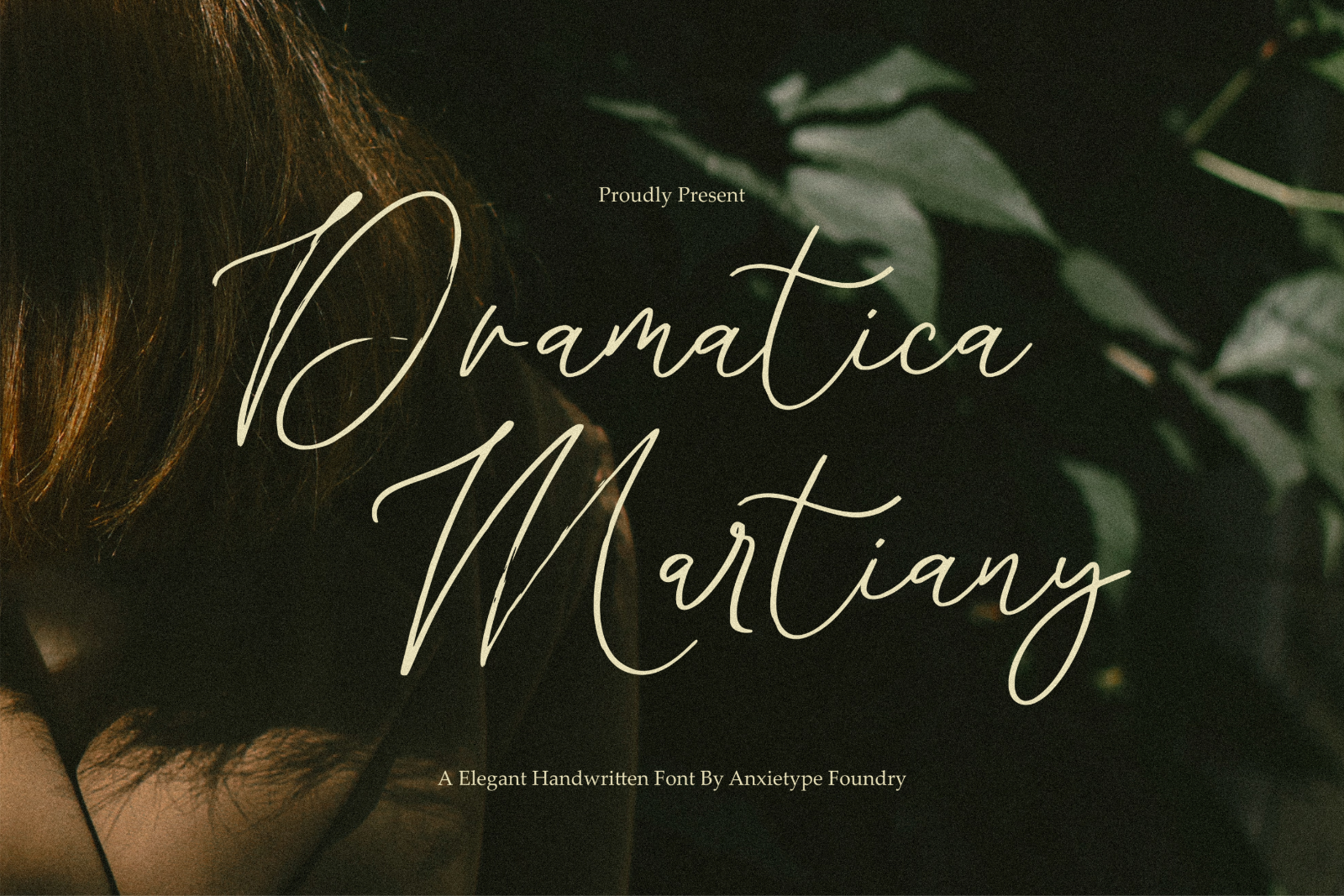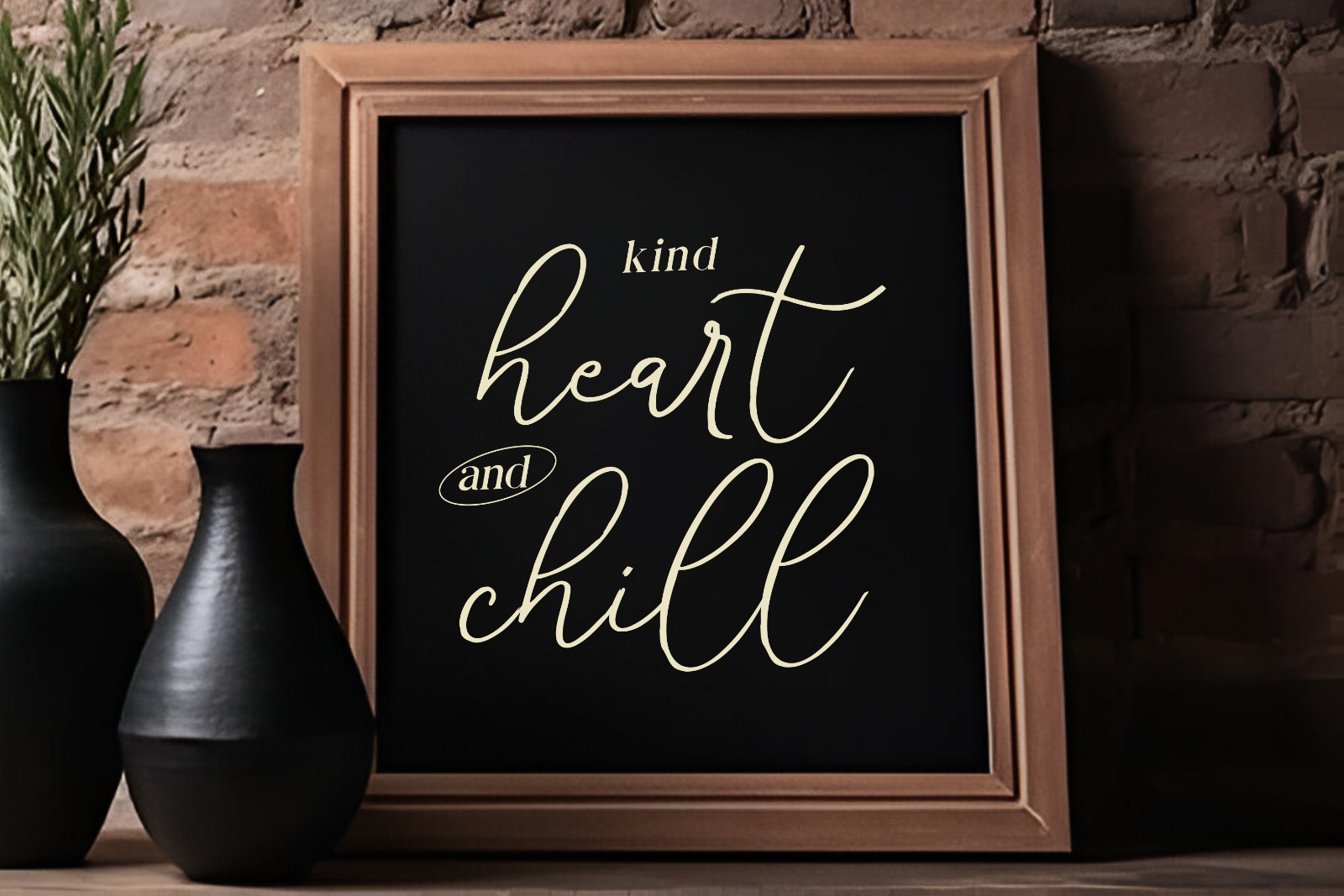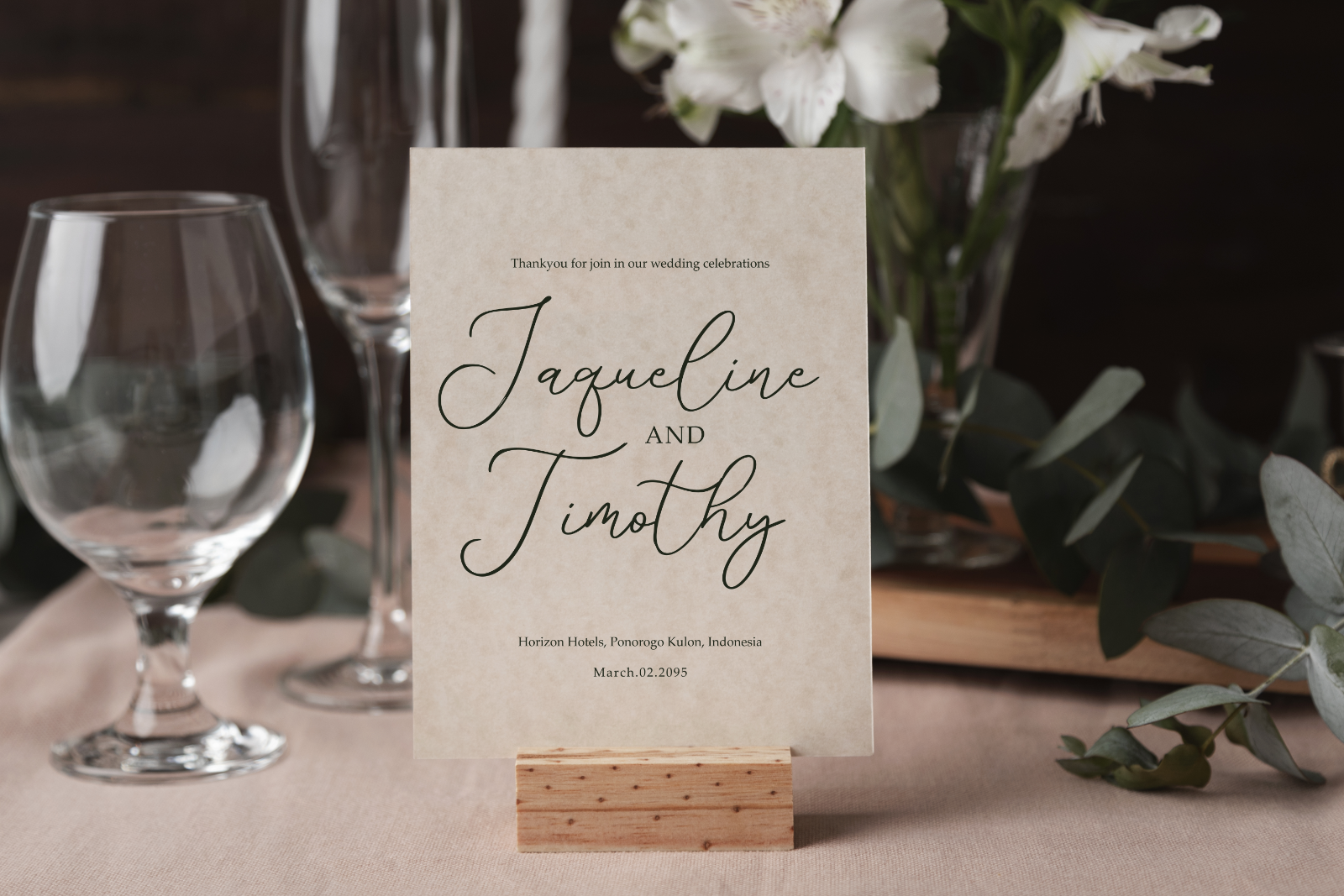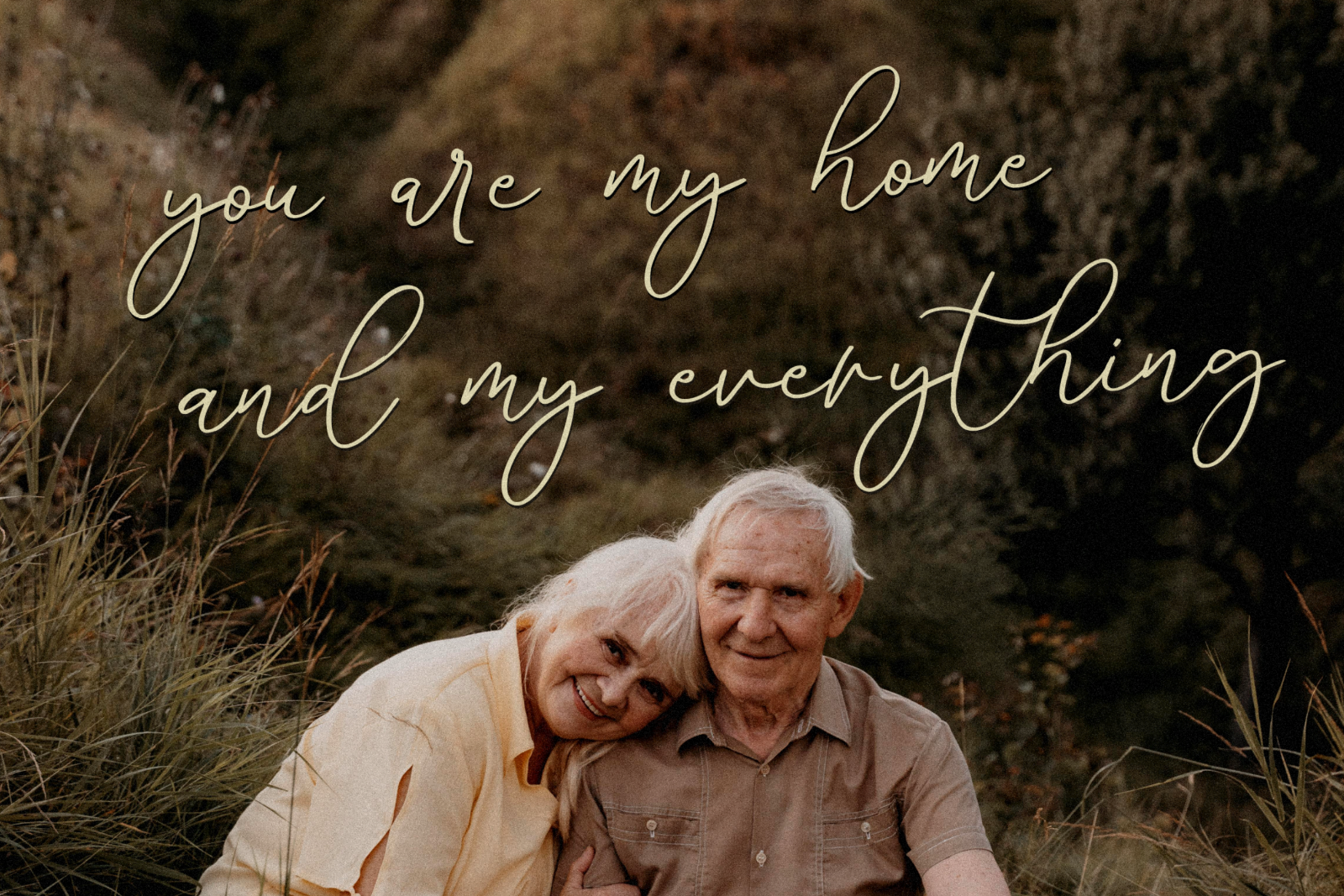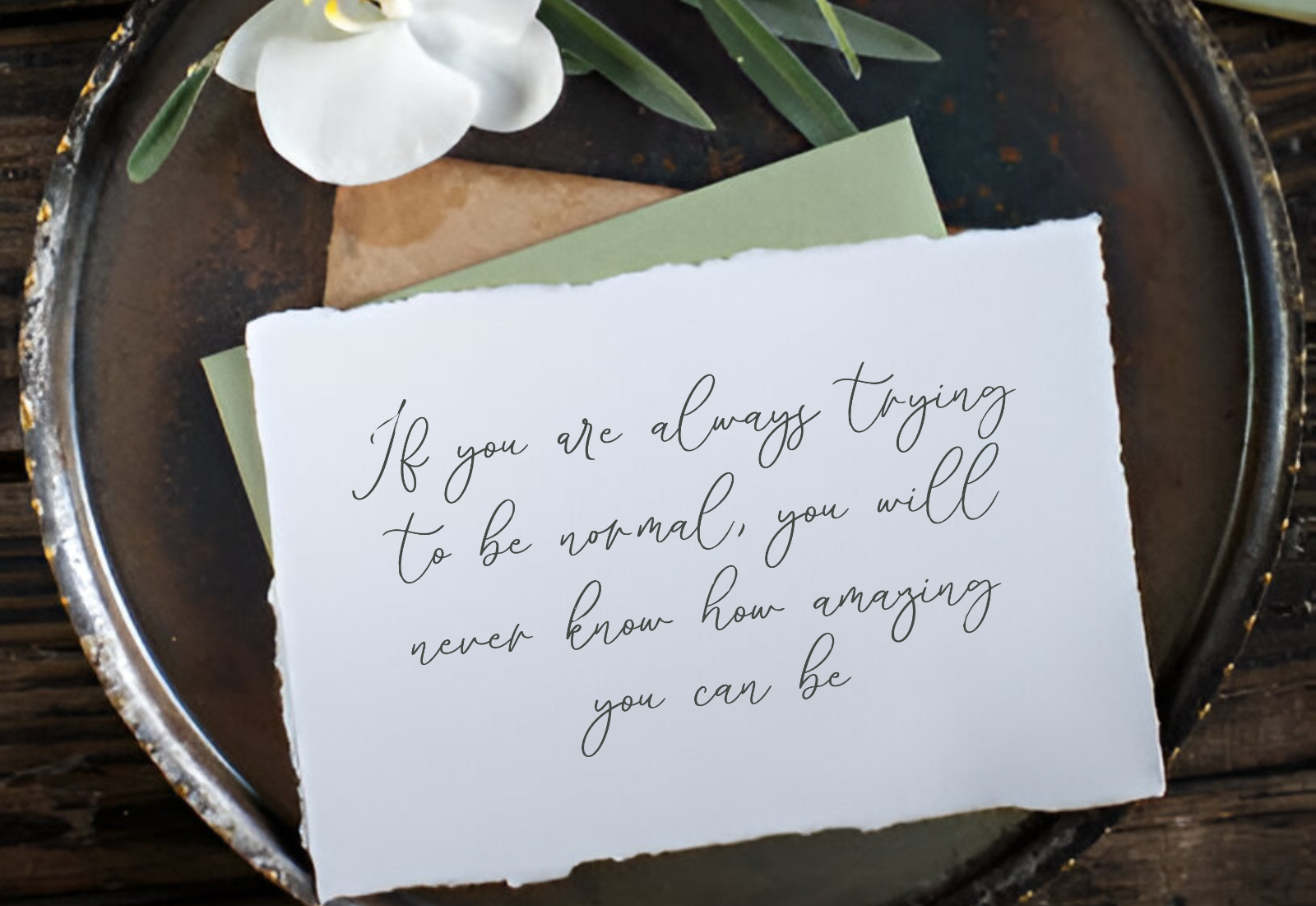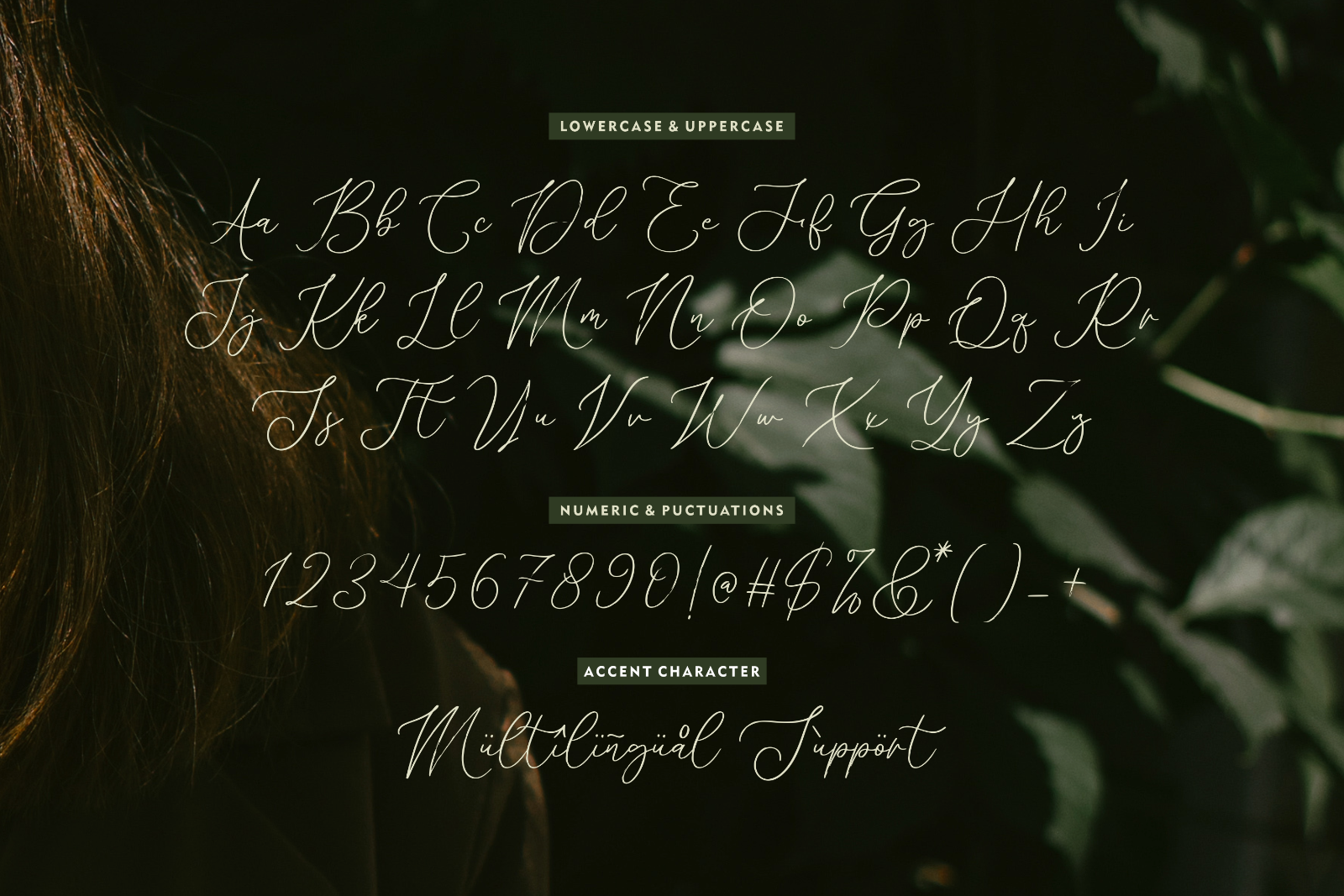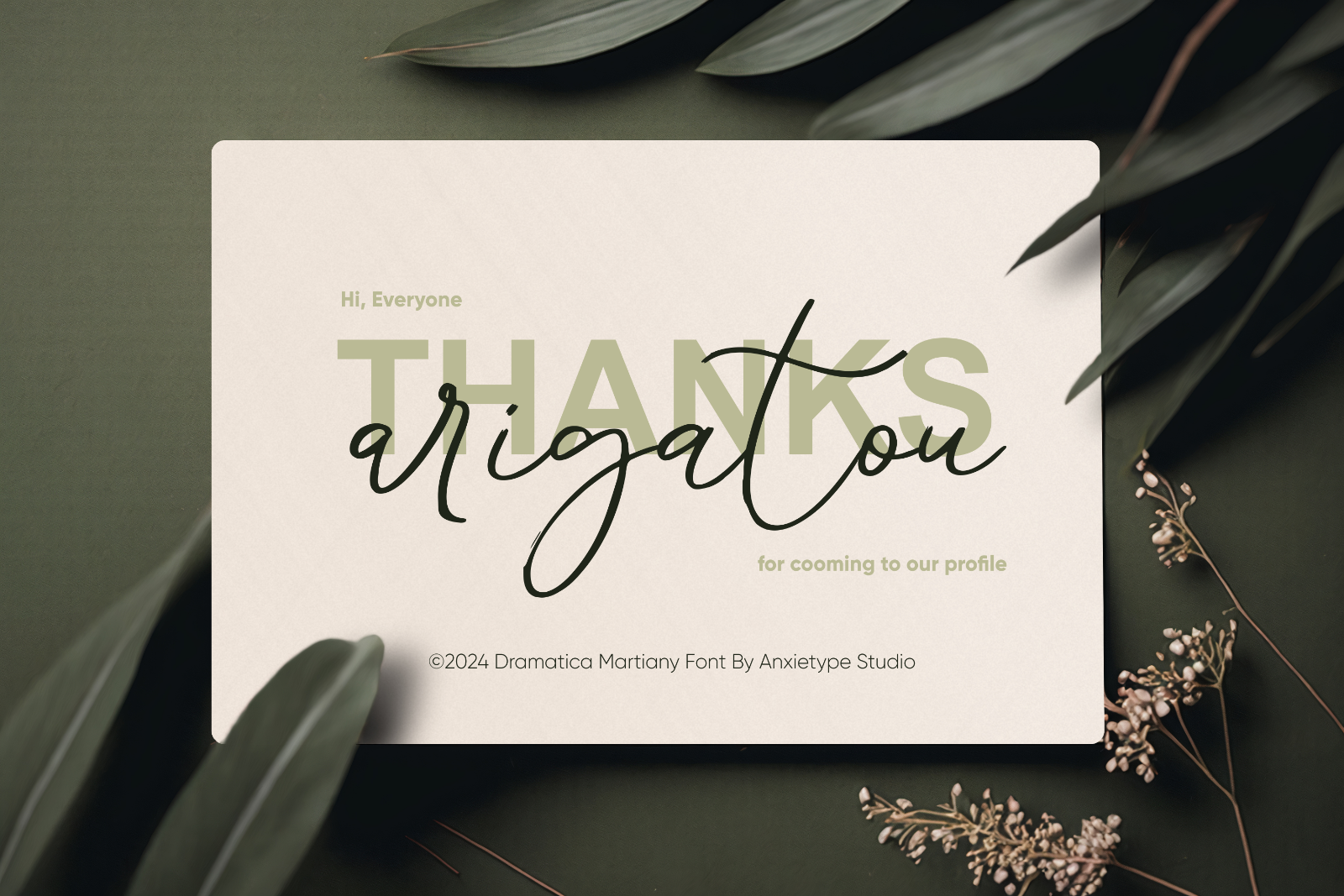
Dramatica Martiany, an artful script typeface from the creative minds at Anxietype Foundry. This casually elegant font exudes a sense of sophistication that's ideal for any grand occasion - from wedding invitations to product packaging. Whether you're reimagining a brand, laying out a magazine, or embarking on a crafting adventure, Dramatica Martiany effortlessly enhances the aura of your creations. Beyond its use as a standout display for words over backgrounds.